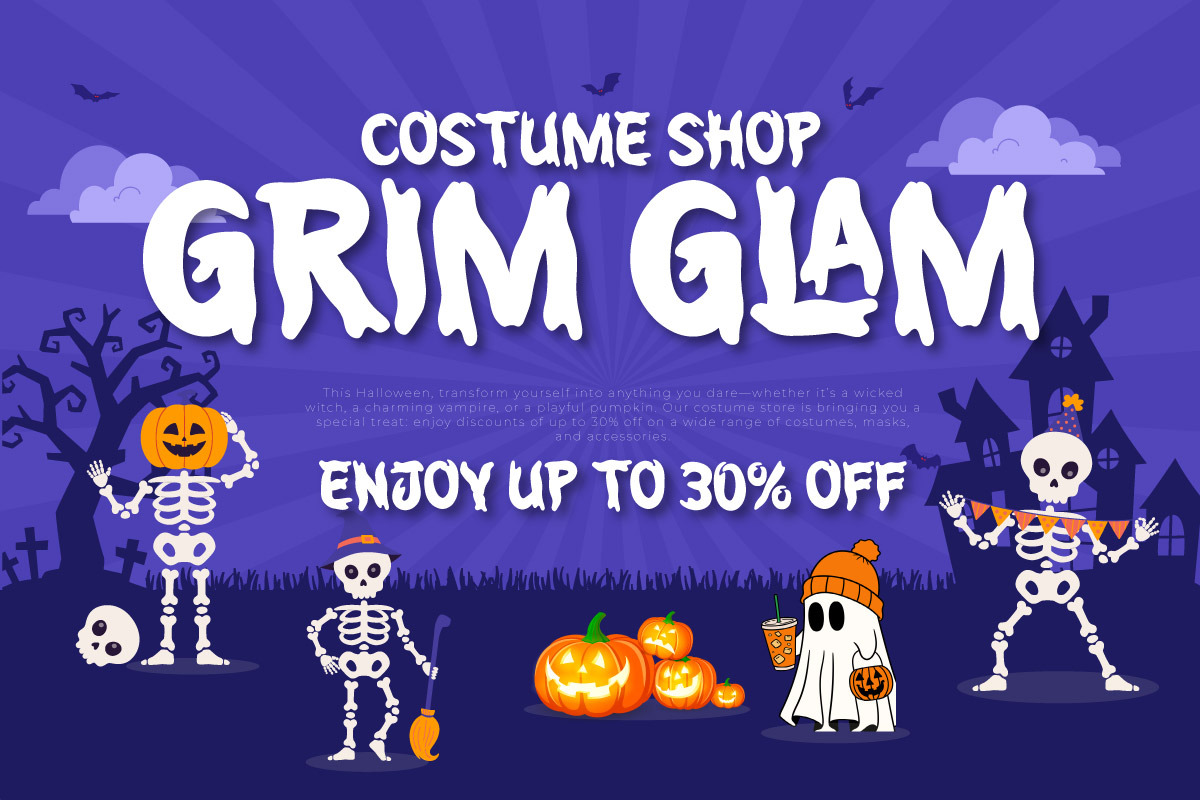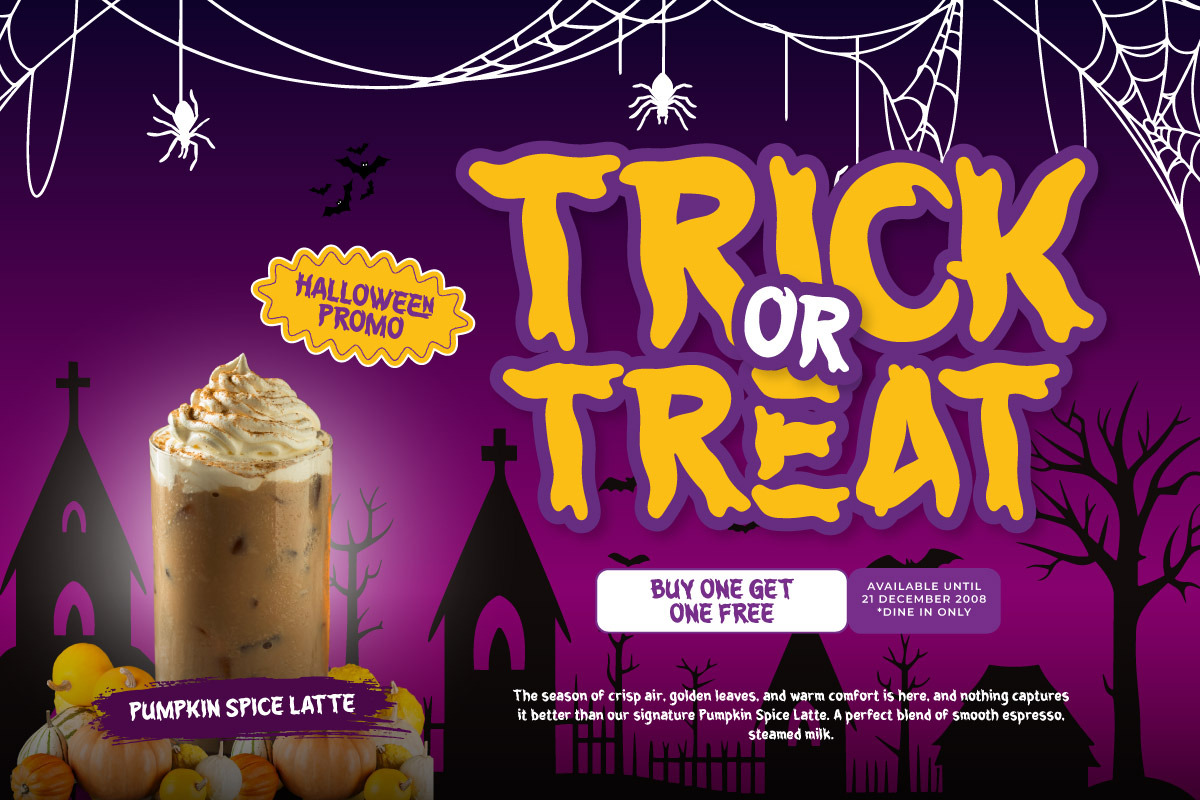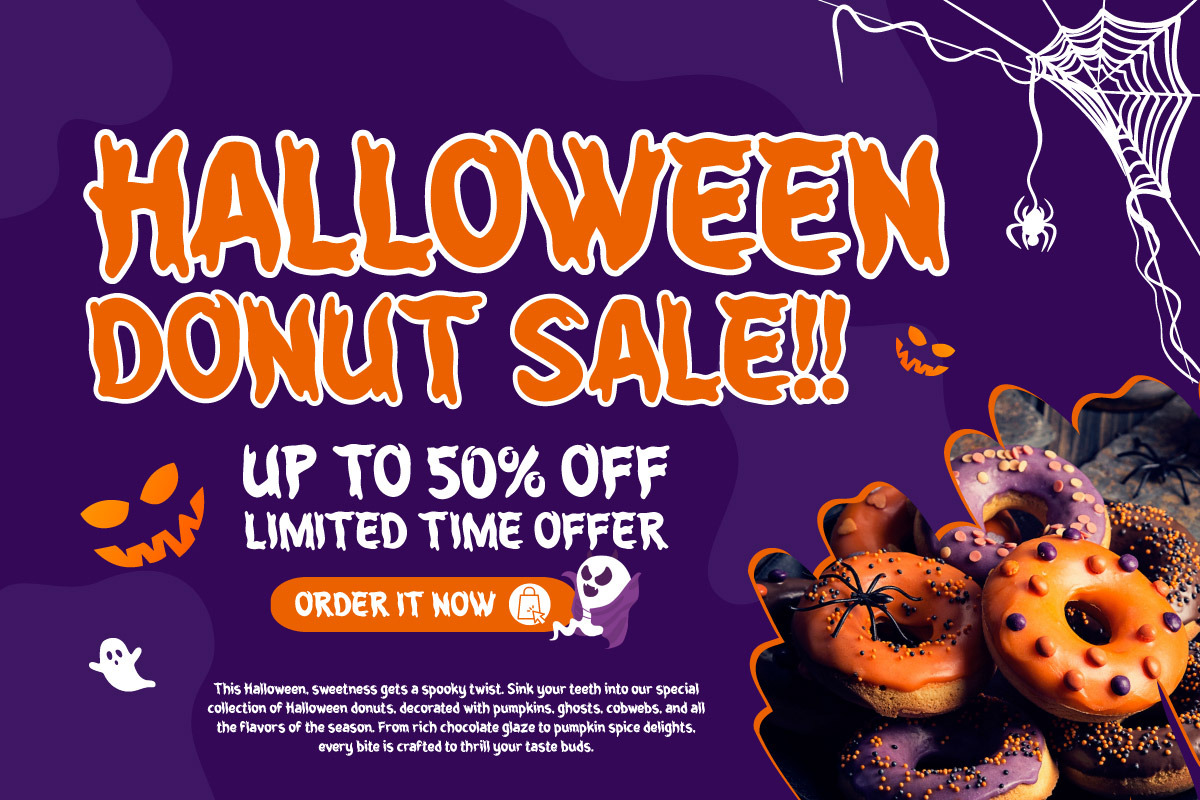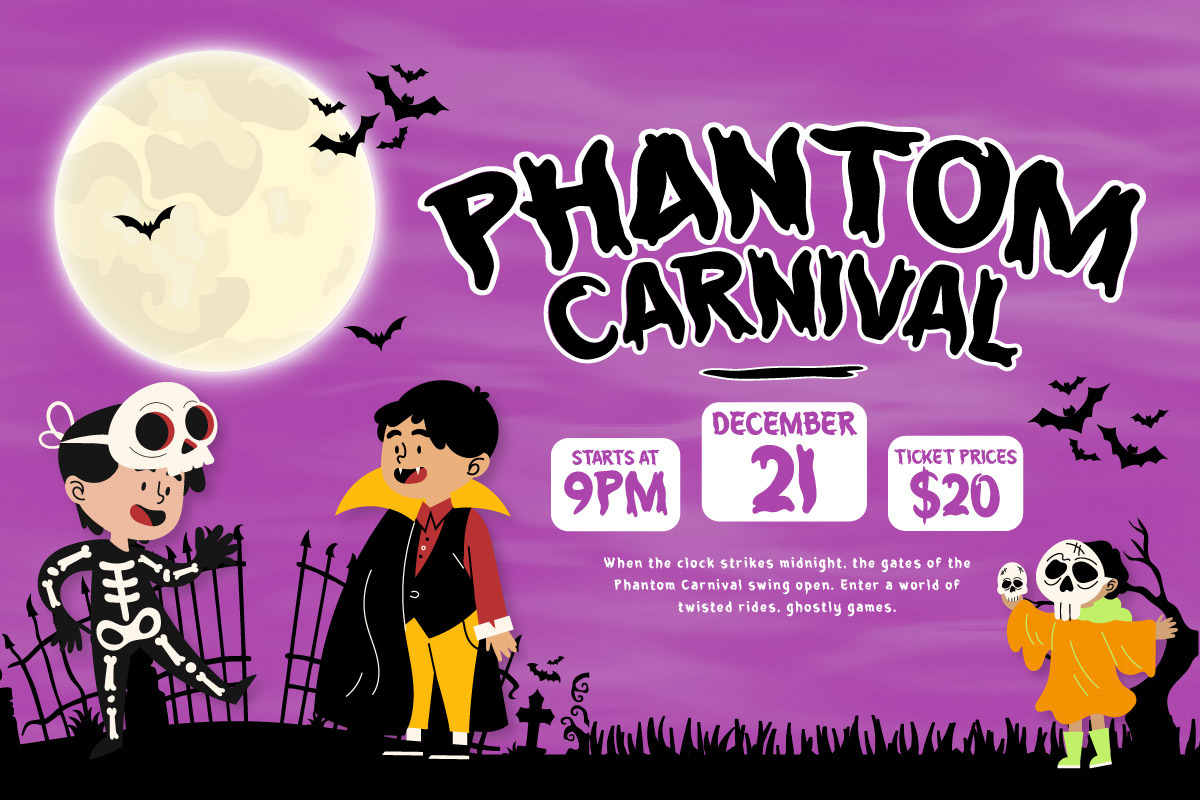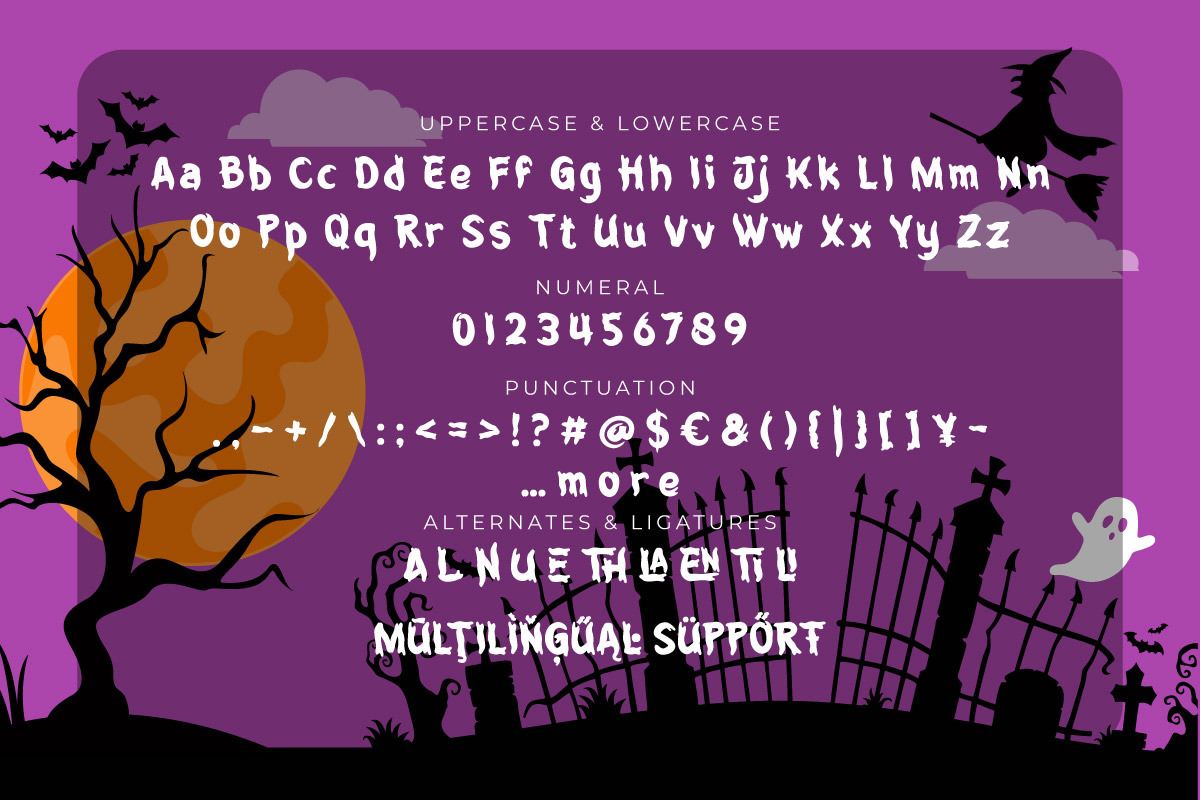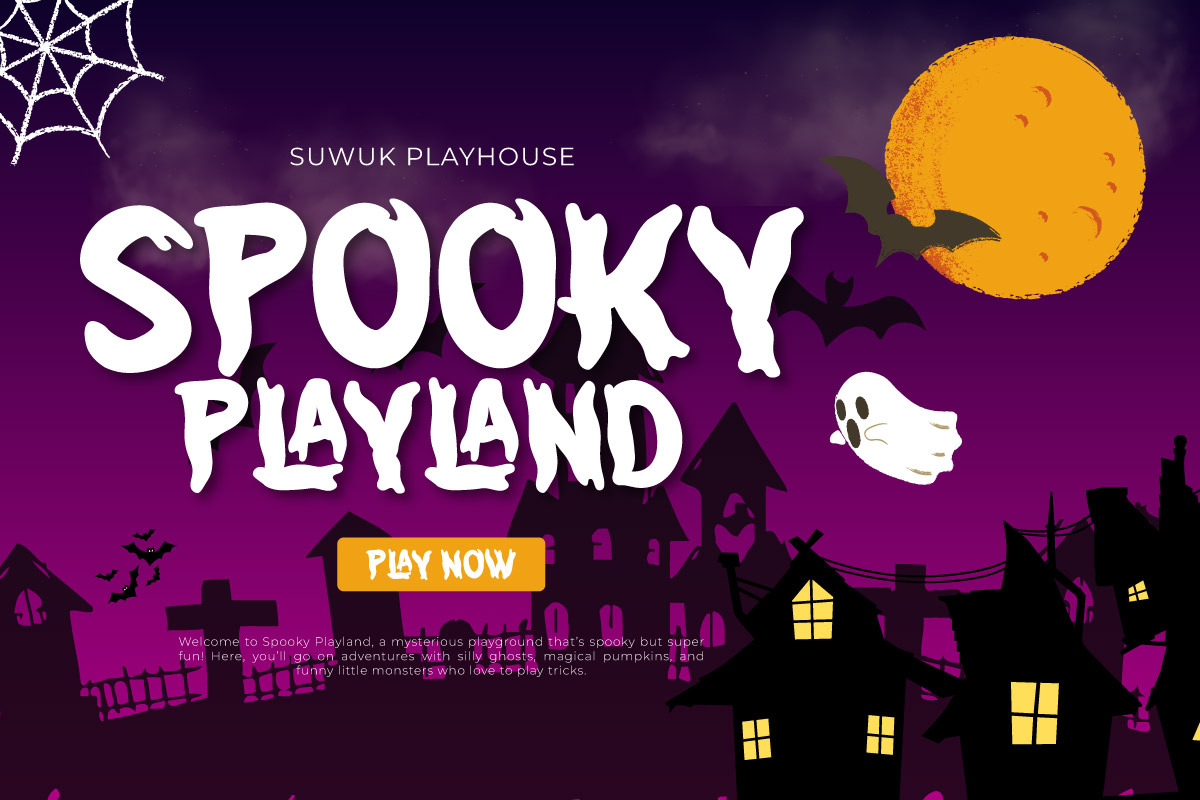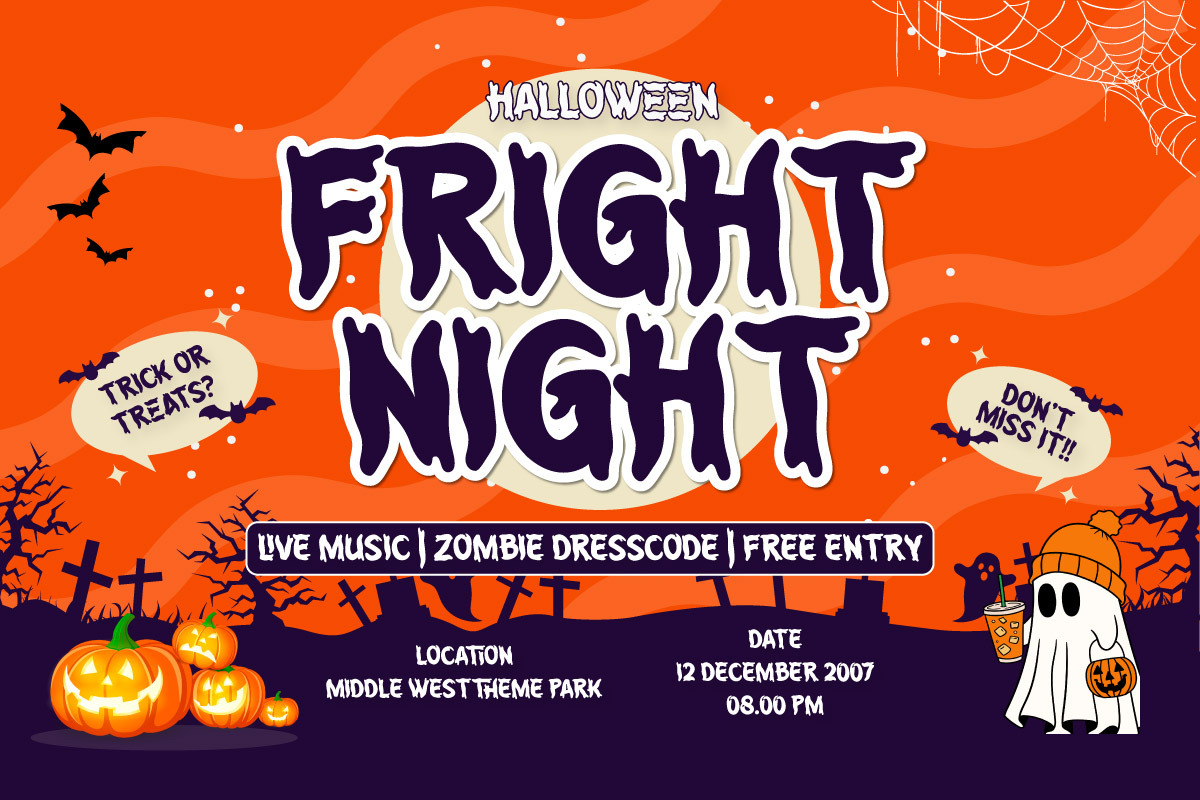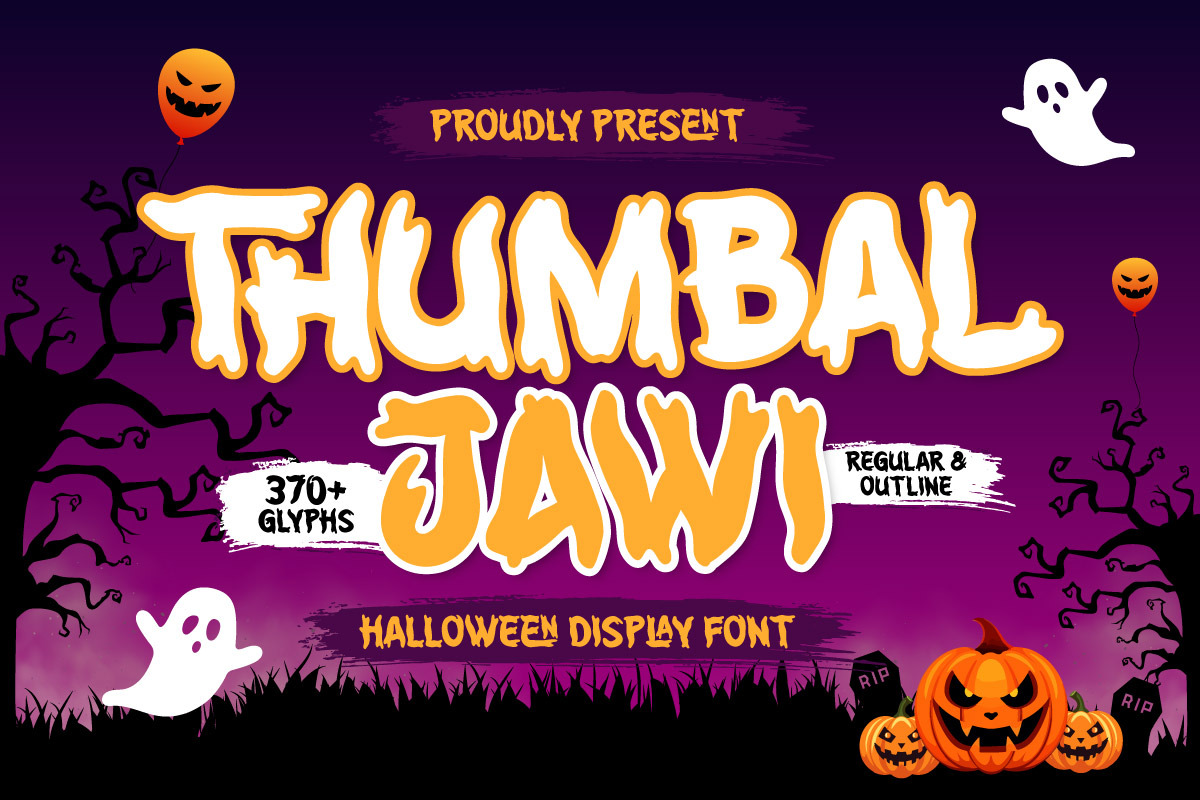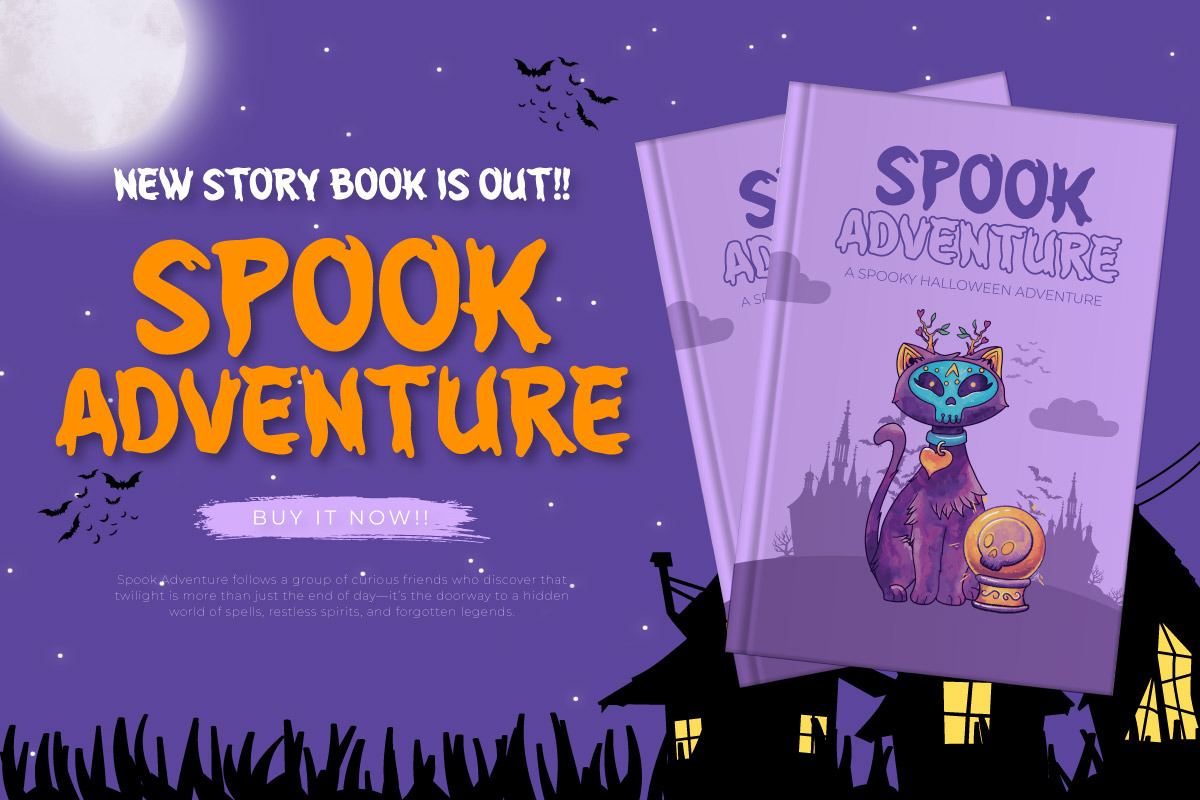
Thumbal Jawi Halloween Display Font
Thumbal Jawi is a bold and playful Halloween display font perfect for adding a spooky twist to your designs. Its bouncy, hand-drawn letterforms give off a fun yet eerie vibe, making it ideal for Halloween posters, party invitations, trick-or-treat signage, horror-themed YouTube thumbnails, and seasonal product packaging.
This font comes with Regular and Outline styles, allowing you to create eye-catching layered effects and experiment with color combinations. With 370+ glyphs, uppercase, lowercase, numerals, punctuation, and multilingual support, Thumbal Jawi is versatile and ready for both digital and print use.
Bring your Halloween projects to life with a font that’s both scary and playful — Thumbal Jawi will make sure your message stands out from the graveyard crowd!
- PUA Encoded: All glyphs are fully accessible without any additional software.
- Multilingual Support: Fully supports 85+ languages, including: Afrikaans, Albanian, Asu, Basque, Bemba, Bena, Breton, Catalan, Chiga, Cornish, Croatian, Czech, Danish, Dutch, Embu, English, Esperanto, Estonian, Filipino, Finnish, French, Friulian, Galician, Gusii, Hungarian, Indonesian, Irish, Italian, Kabuverdianu, Kalenjin, Kamba, Kikuyu, Kinyarwanda, Latvian, Lithuanian, Lower Sorbian, Luo, Luxembourgish, Luyia, Machame, Makhuwa-Meetto, Makonde, Malagasy, Maltese, Manx, Meru, Morisyen, North Ndebele, Norwegian Bokmål, Norwegian Nynorsk, Nyankole, Oromo, Polish, Portuguese, Quechua, Romanian, Romansh, Rombo, Rundi, Rwa, Samburu, Sango, Sangu, Scottish Gaelic, Sena, Serbian, Shambala, Shona, Slovak, Slovenian, Soga, Somali, Spanish, Swahili, Swedish, Swiss German, Taita, Teso, Turkish, Upper Sorbian, Uzbek (Latin), Volapük, Vunjo, Walser, Zulu.